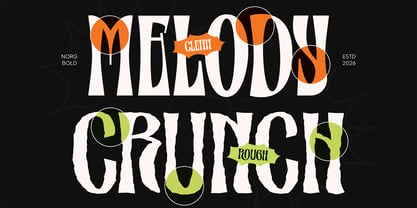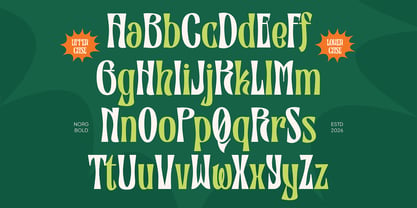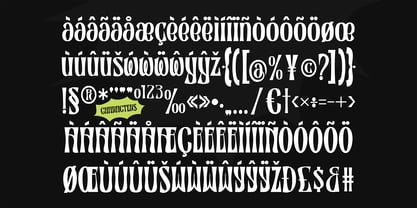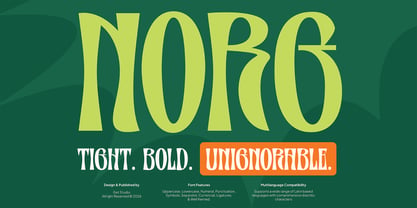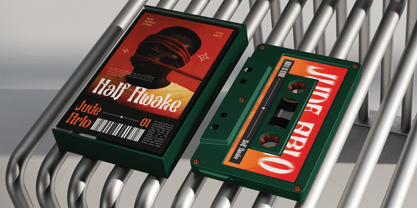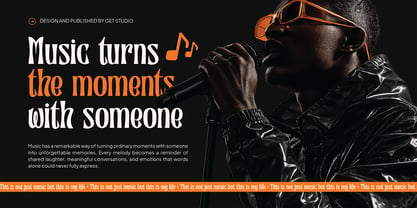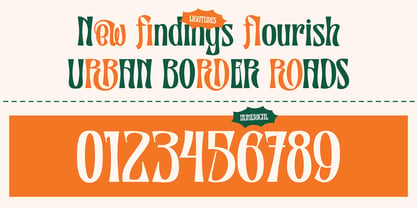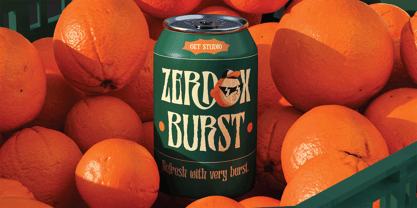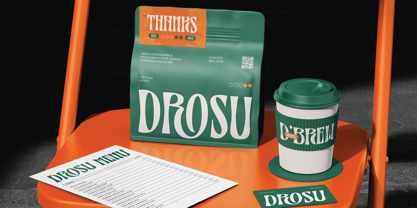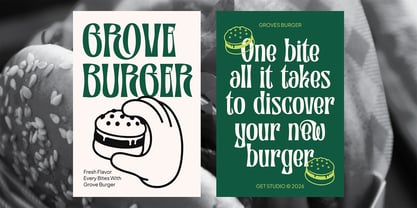
Norg
The Norg Font Family was designed by Hermansyah and published by Get Studio. Norg contains 2 styles and family package options. More about this family
NORG is a bold condensed display typeface shaped by a modern vintage spirit. It blends sculpted curves with sharp, confident cuts—creating a tight, vertical rhythm that feels both handcrafted and deliberate. Designed with two distinct styles—Regular and Rough, NORG gives you flexibility in tone: Regular delivers a clean, solid, and refined look Rough adds a textured, slightly imperfect edge for a more raw, expressive feel Its condensed structure gives every word a strong presence while saving space, making it perfect for impactful headlines, editorial layouts, packaging, and branding. Slightly unconventional, subtly expressive, yet highly controlled—NORG stands out without forcing attention. It doesn’t follow trends. It holds its ground—solid, striking, and unmistakably unique.